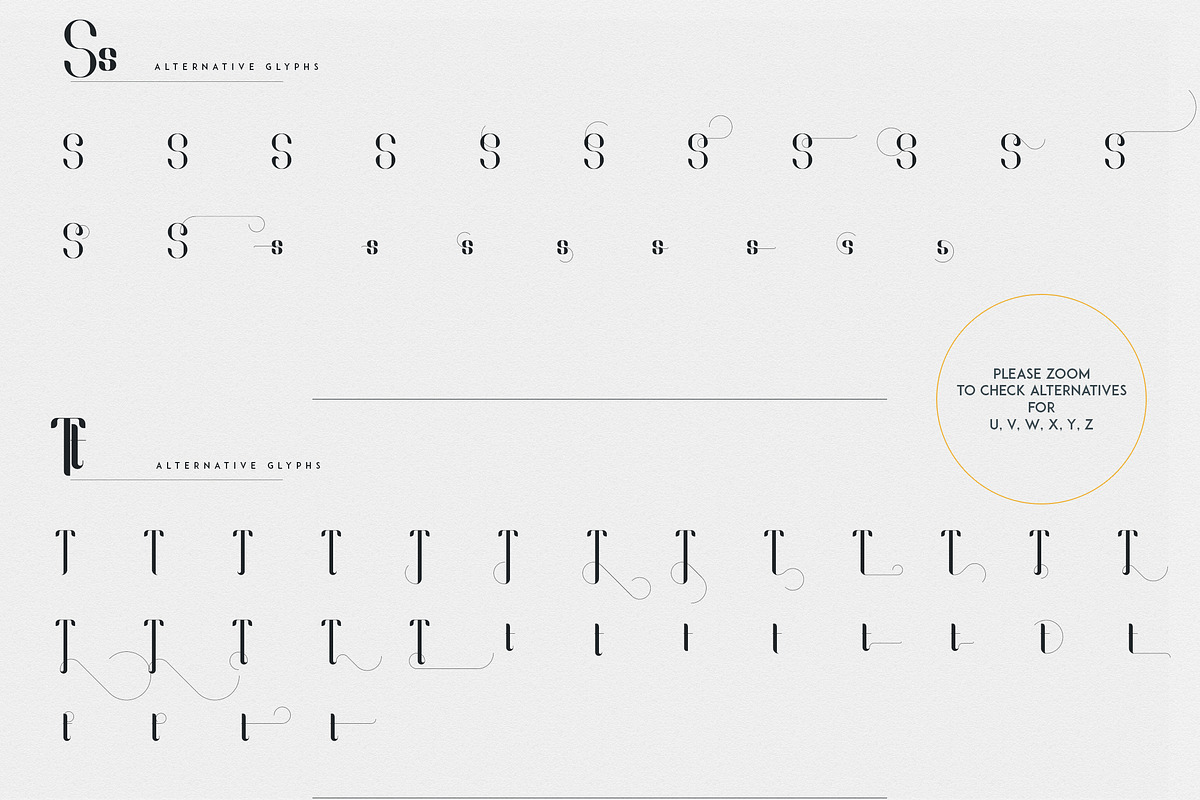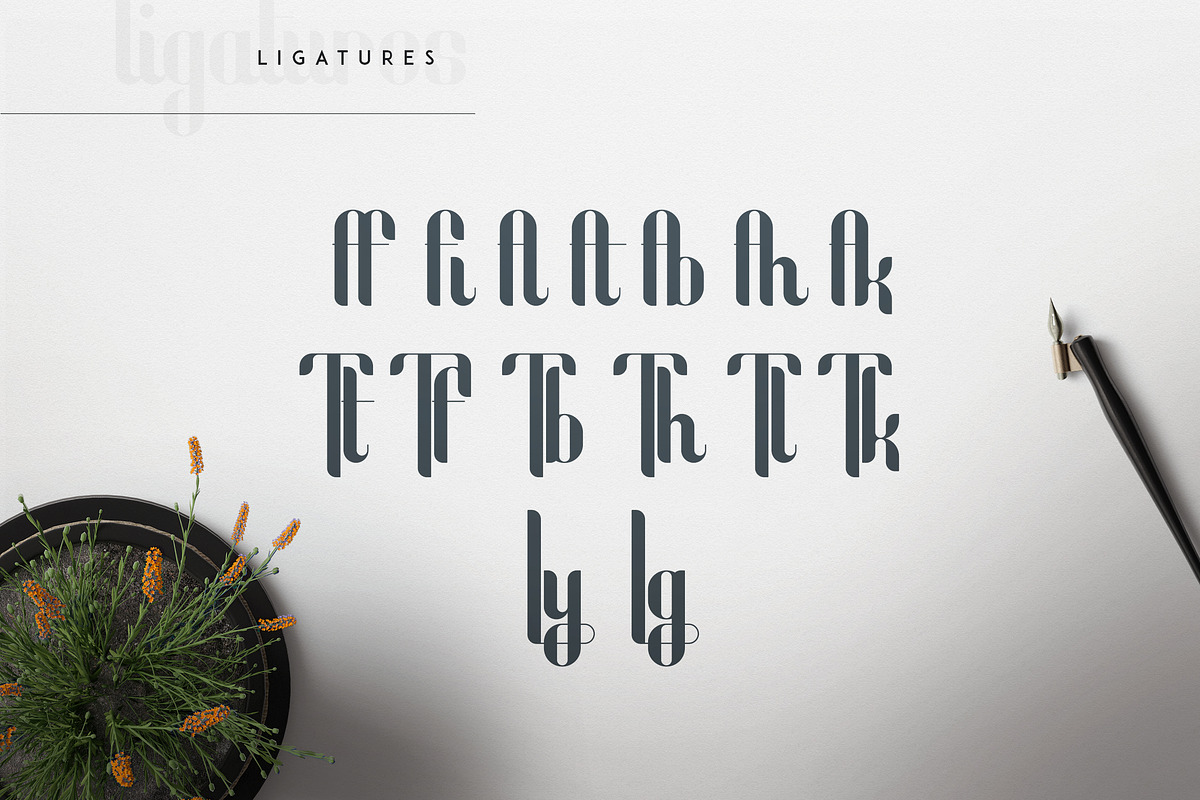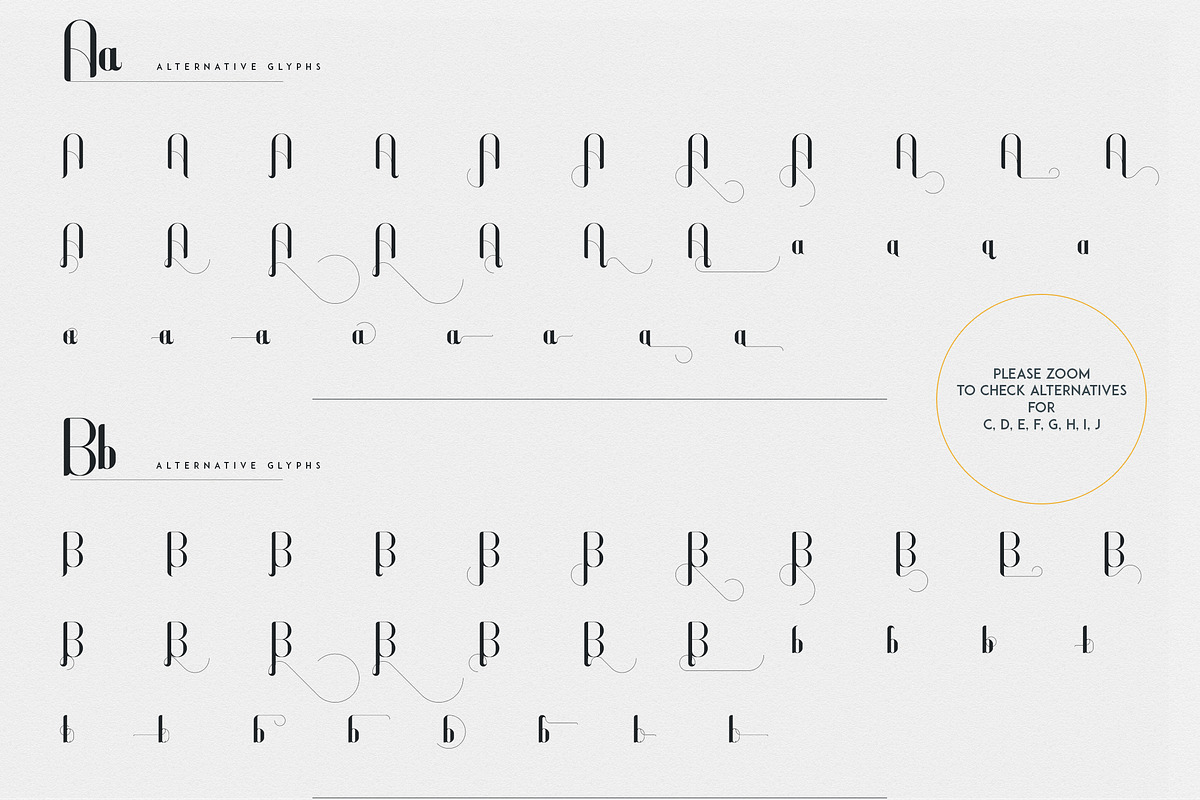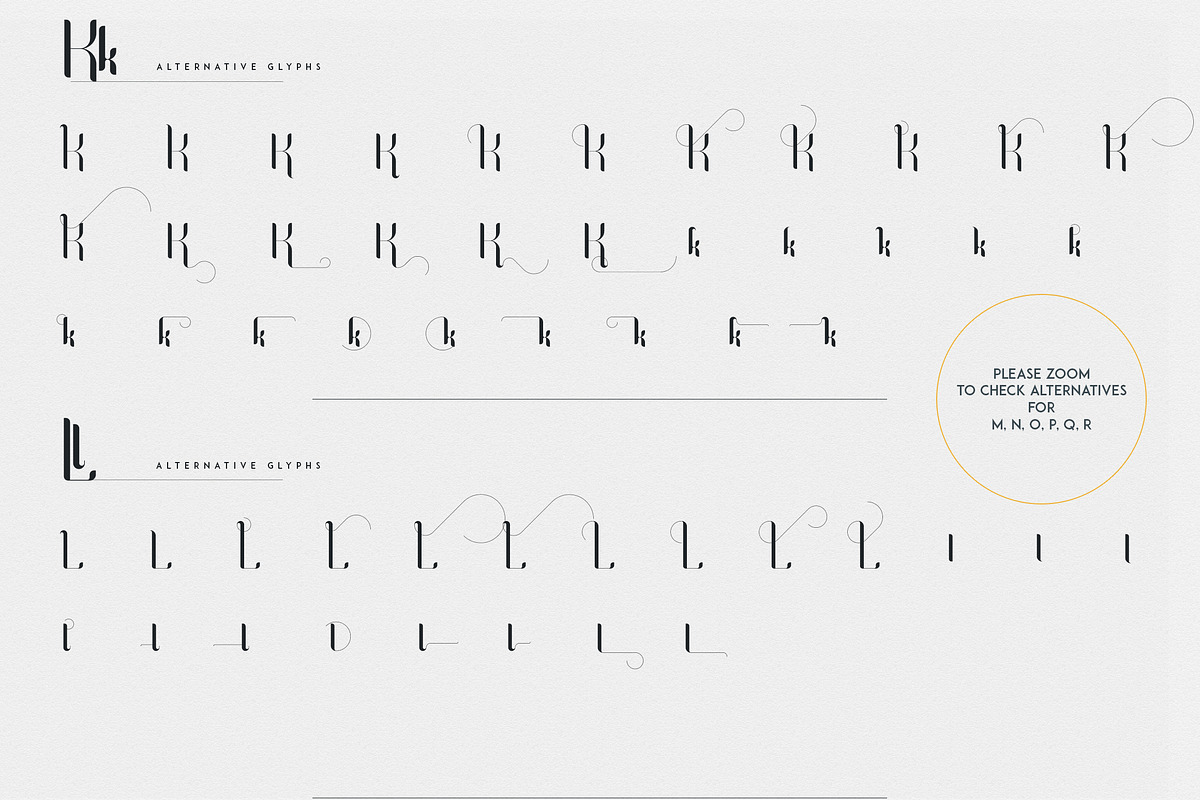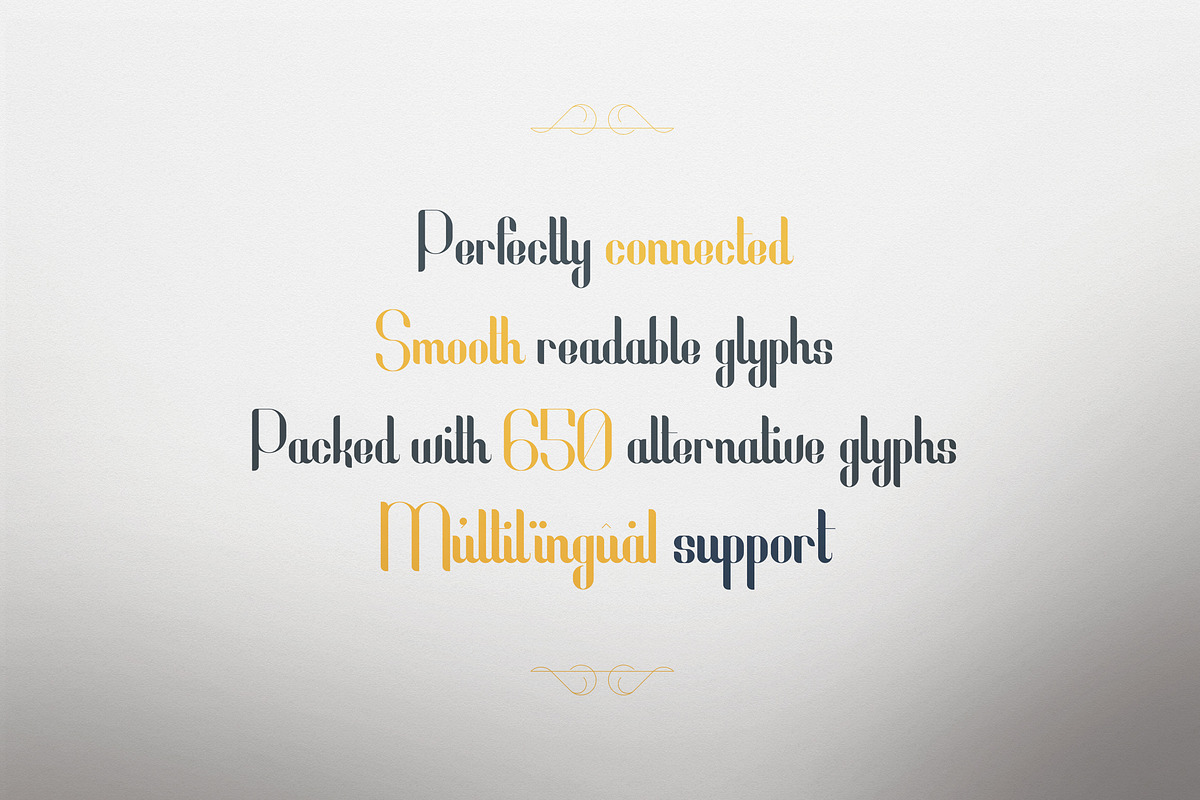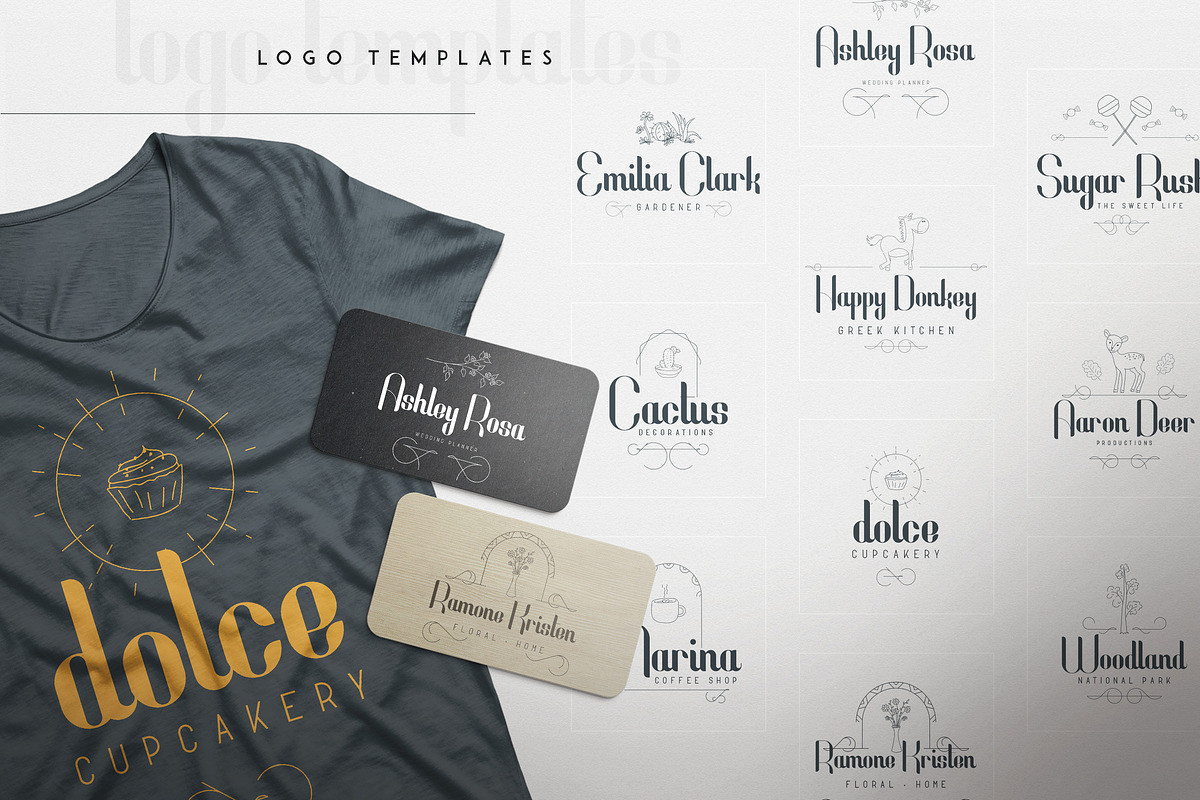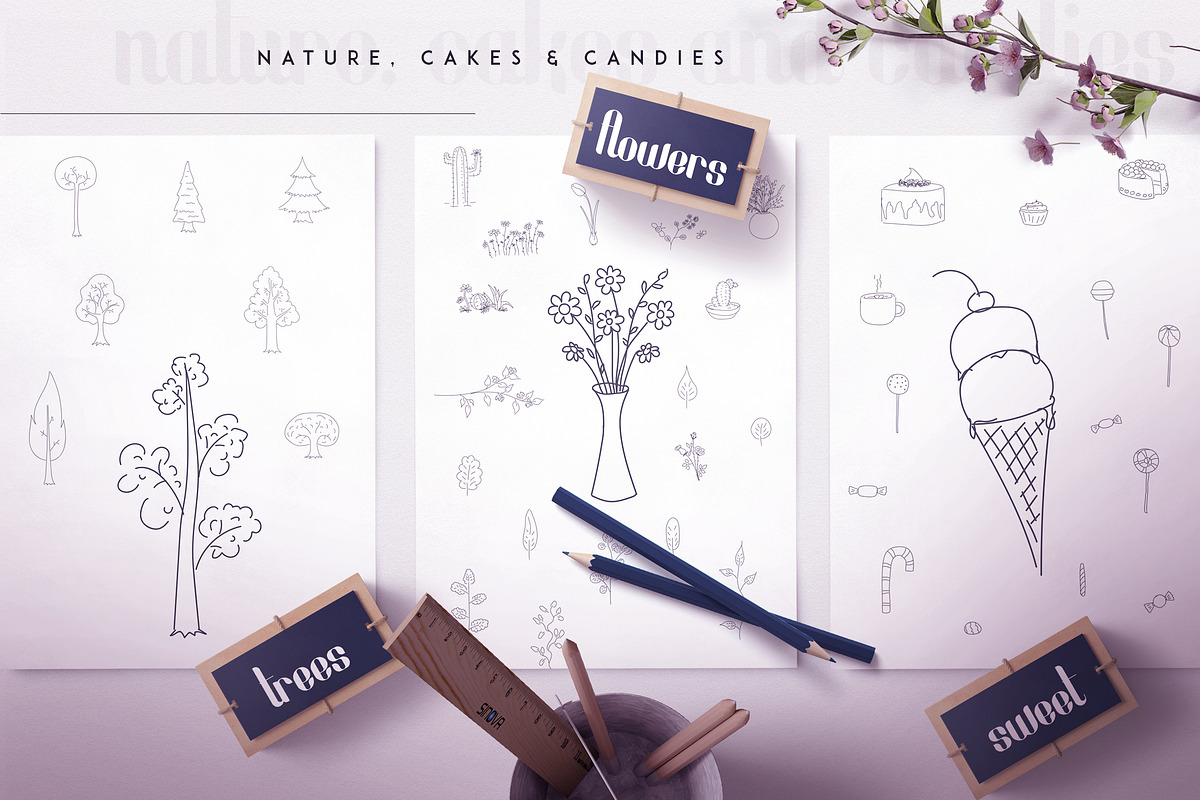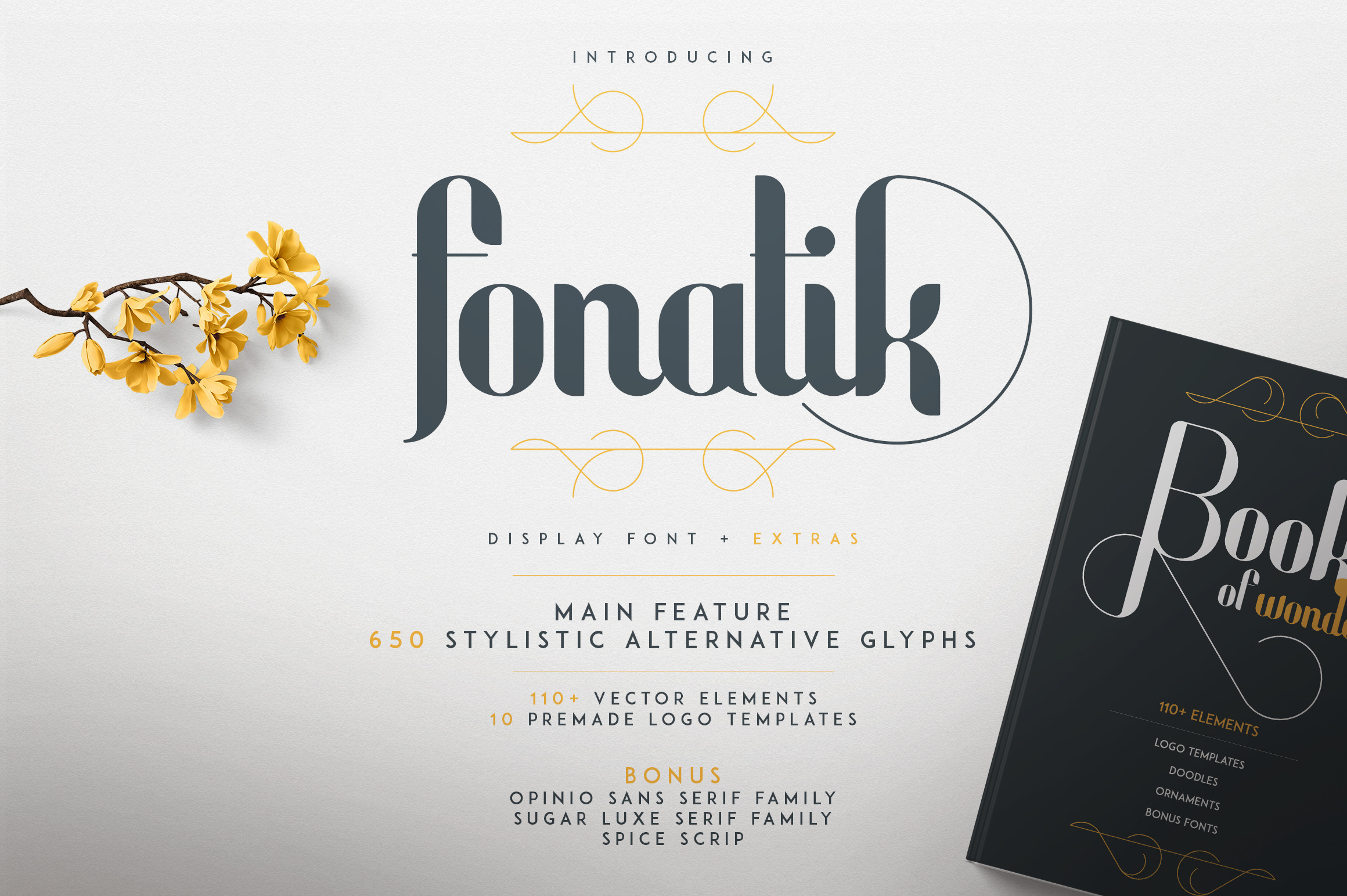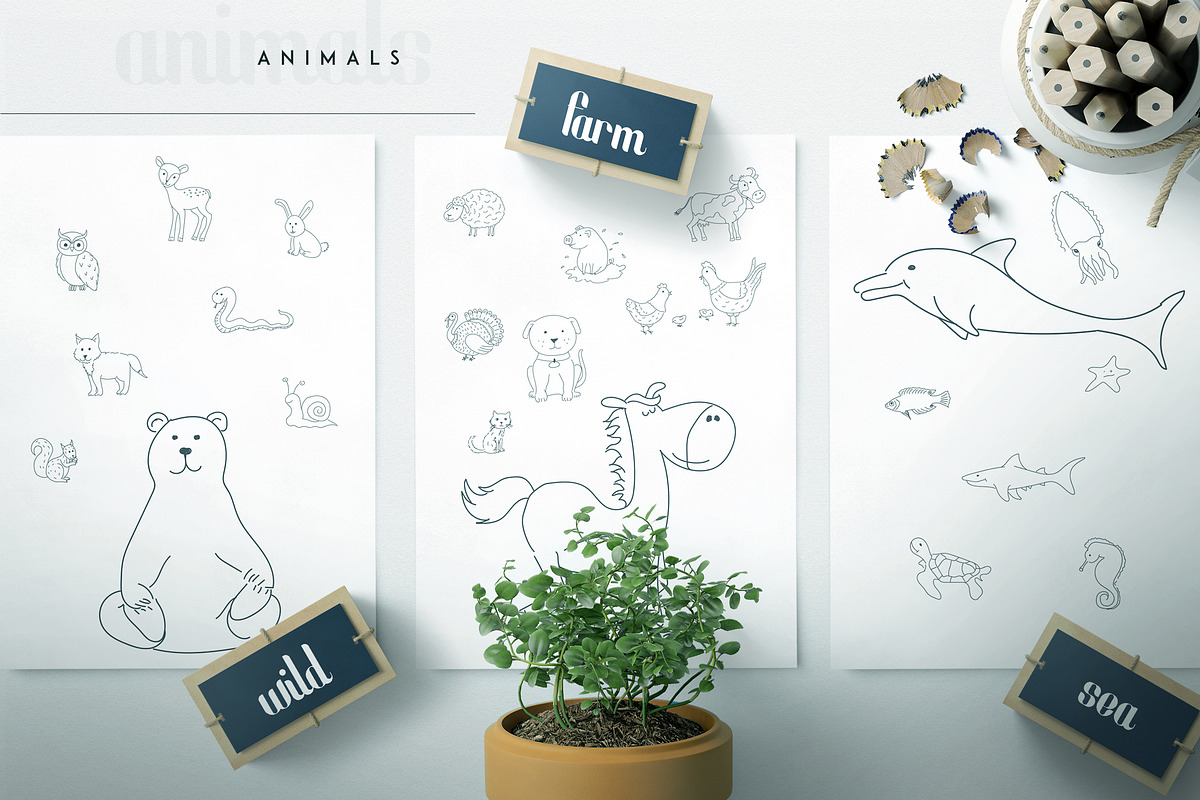
Fonatik Display font + Extras
INTRODUCING Fonatik display font + Book of wonders
Fonatik is elegant, clean font with 650 stylistic alternative glyphs, 110+ vector elements, 10 premade logo templates, 3 bonus font families and multilingual support. It's a very versatile font that works great in large and small sizes.
Fonatik is perfect for branding projects, home-ware designs, product packaging, magazine headers - or simply as a stylish text overlay to any background image.
In this Product you will find :
Fonatik font
- 650 stylistic alternative glyphs
- Perfectly connected
- Smooth readable glyphs
Standart Ligatures : Tb, Tf, Tl, Tt, Tk, fi, fb, ff, ft, fk, fl, Ly, Lg
Book for wonder
- 10 premade logo templates
- 11 Farm animals
- 7 Sea animals
- 8 Wild animals
- 15 Cake and candy
- 19 flowers and leafs
- 8 Trees
- 44 Ornaments
BONUS